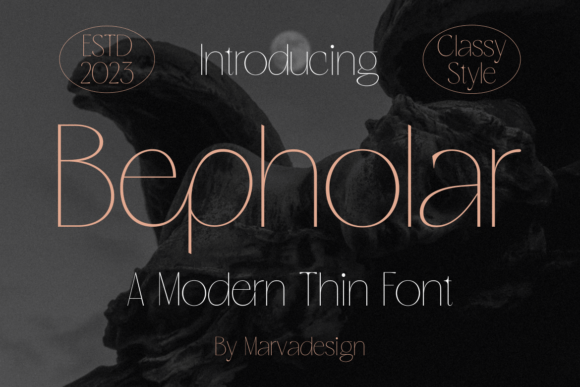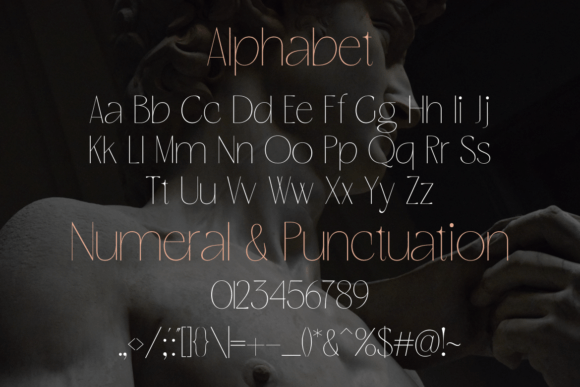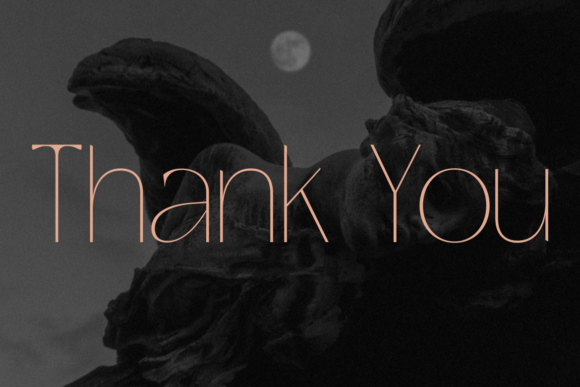
Bepholar Font
Bepholar is an elegant slab serif font, that features a very delicate and classy look. Not too thin and not too thick, balanced and varied, Bepholar was designed to enhance the beauty of your projects.